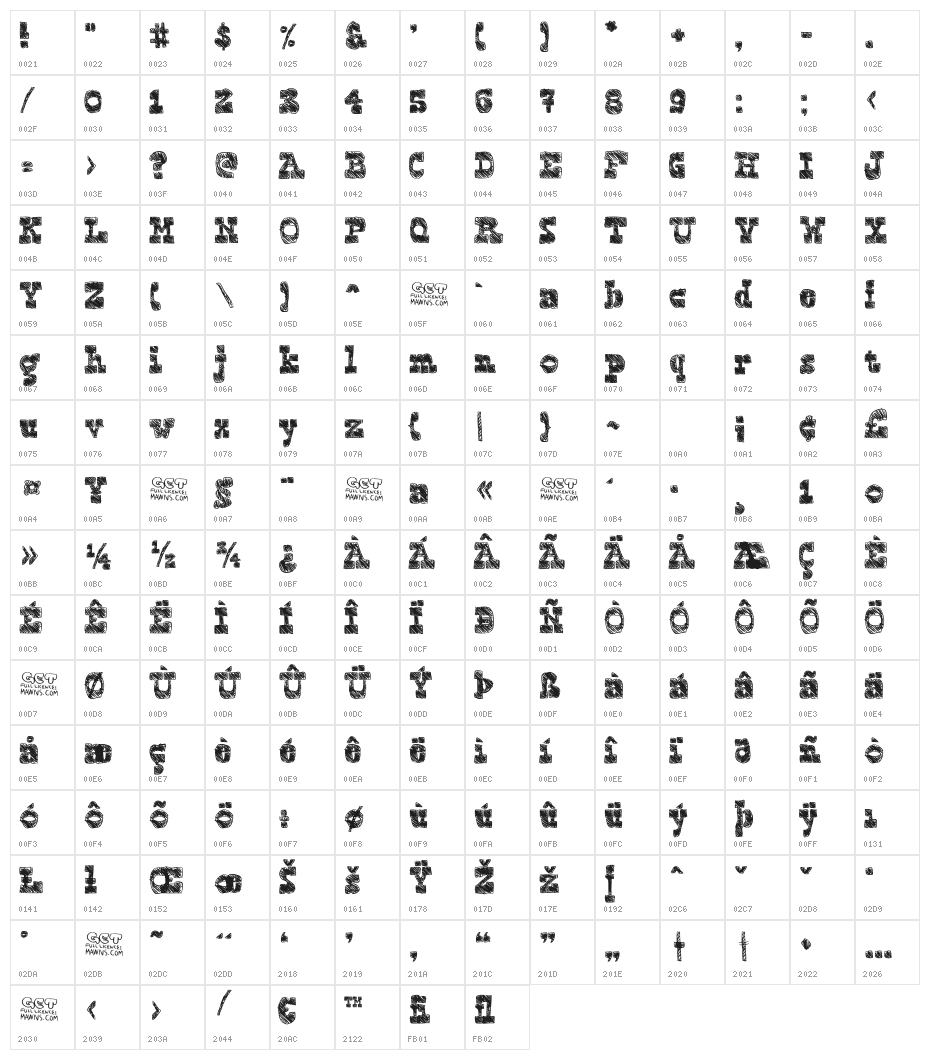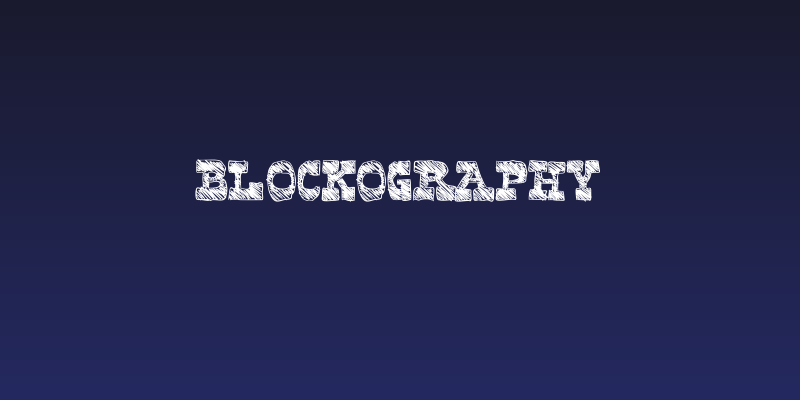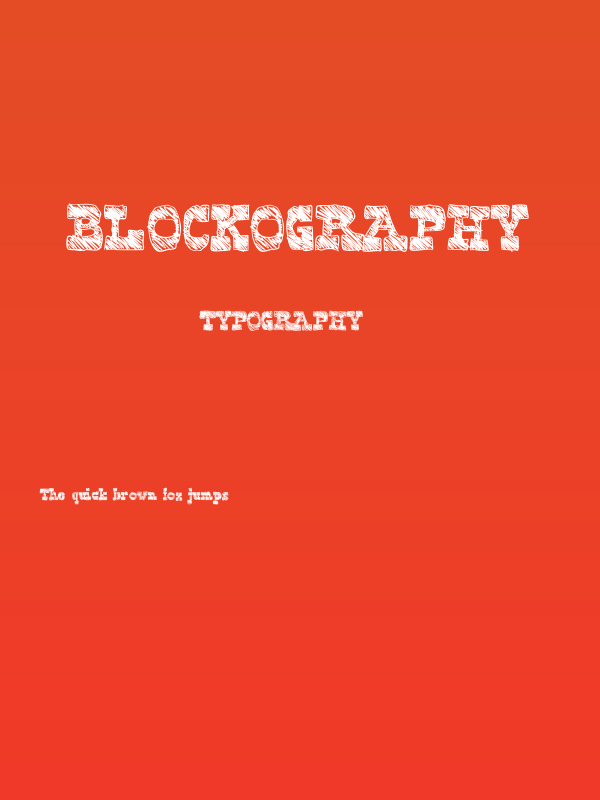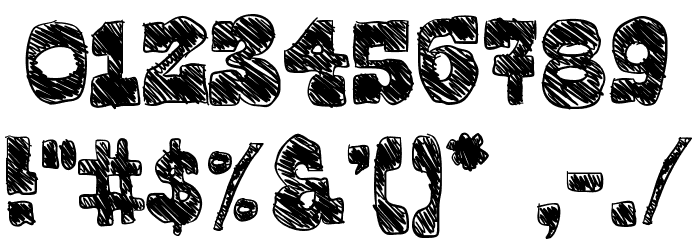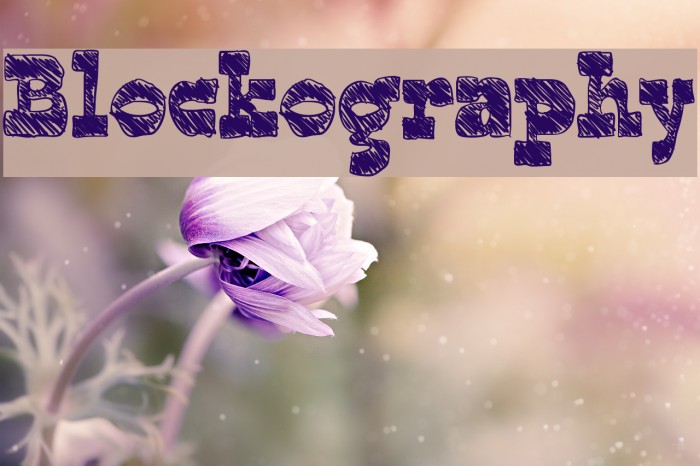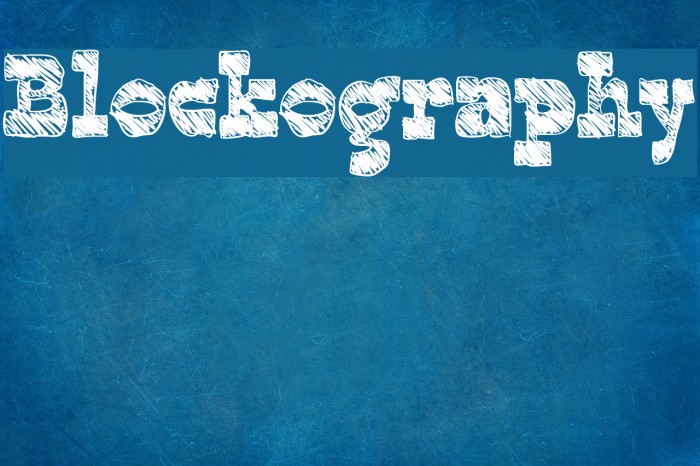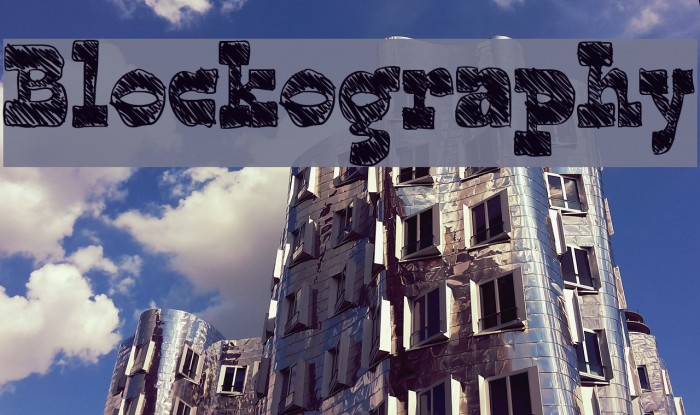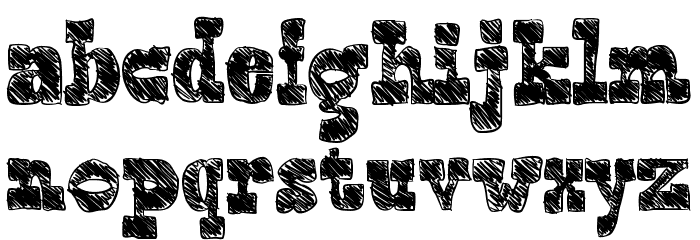
Blockography Font
This font features a bold, textured style with a hand-drawn, sketch-like appearance. Each character is filled with diagonal lines, creating a unique, artistic look. The letters are blocky and robust, with a playful yet strong presence. The uppercase and lowercase letters maintain a consistent style, while the numbers and special characters follow the same textured pattern. This font exudes creativity and stands out with its distinctive, decorative design.
| Proposed Projects | Ideal for creative projects such as posters, album covers, children's books, and artistic branding. |